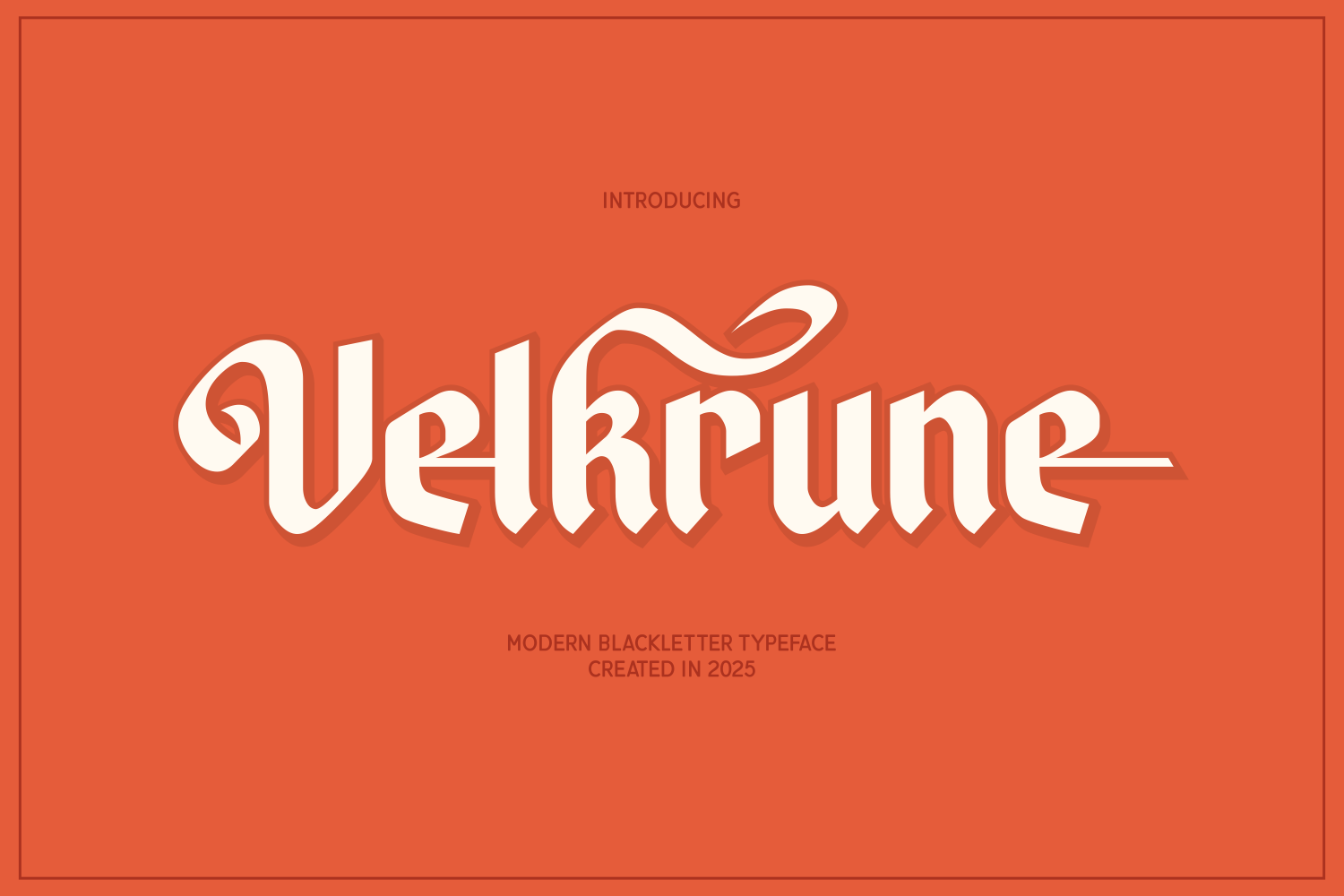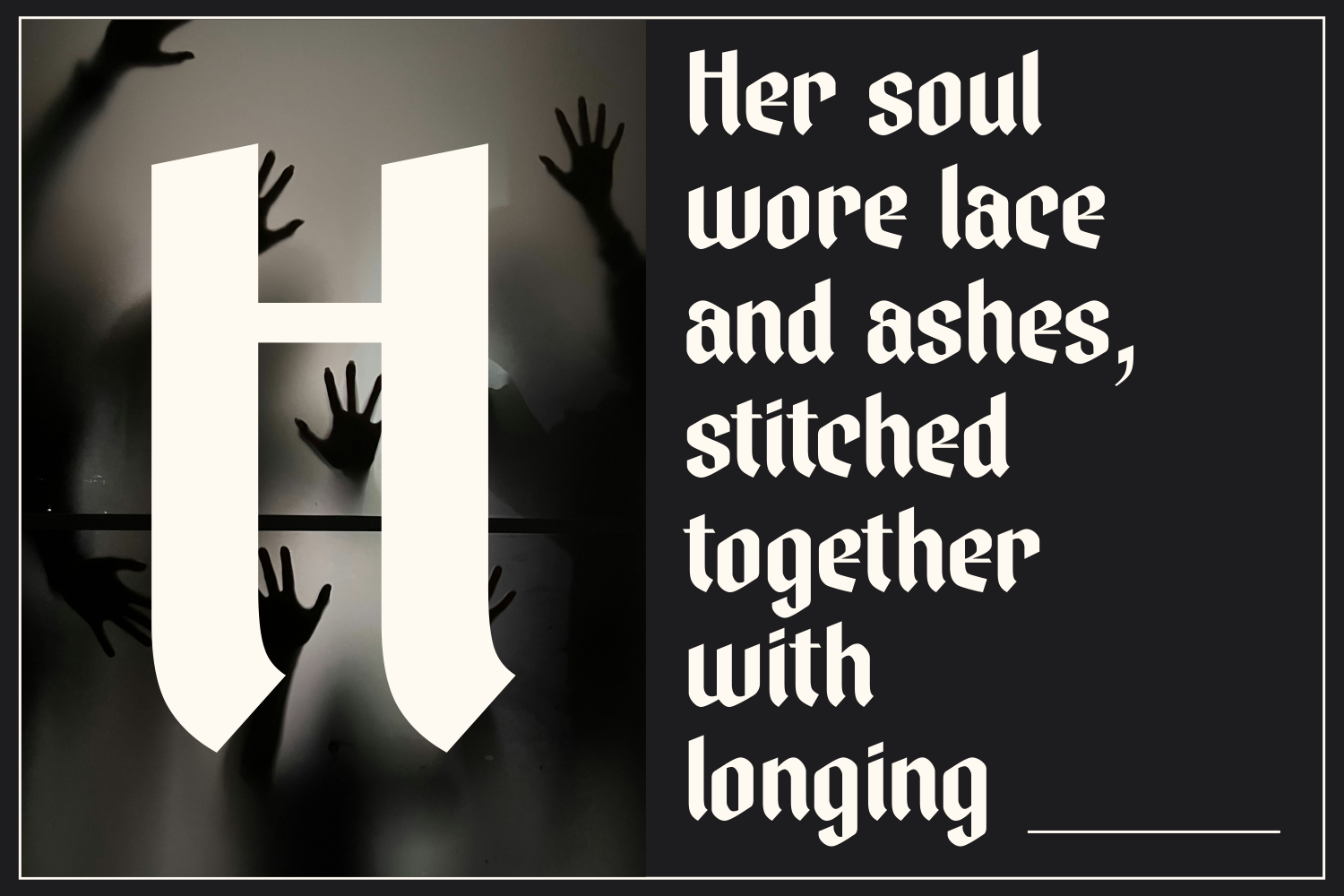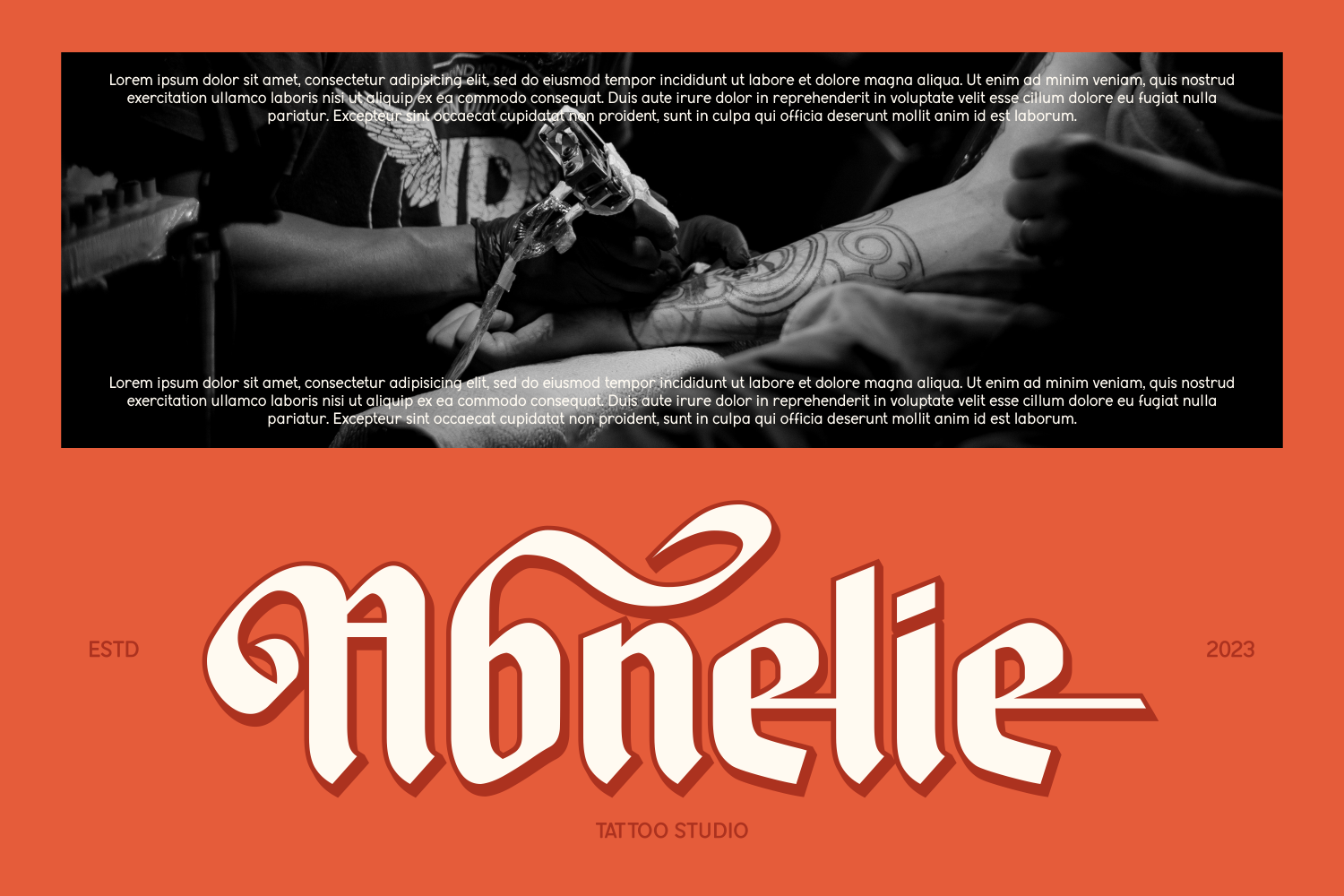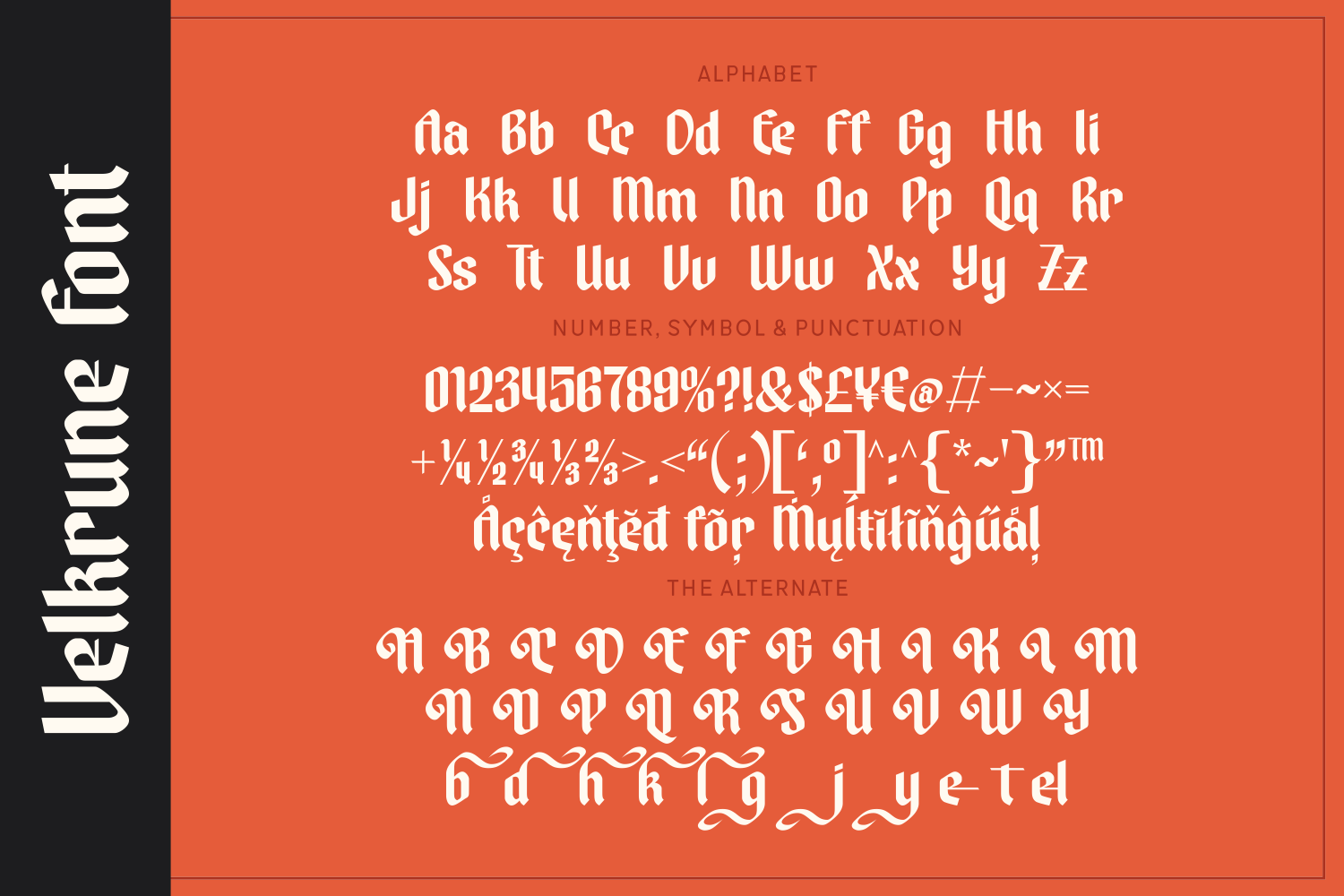
Velkrune is a contemporary blackletter font with flowing swashes and playful elegance. Ideal for creative branding, lifestyle packaging, and expressive poster designs.